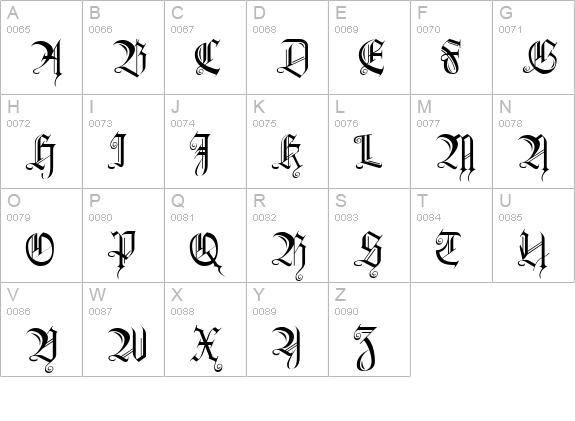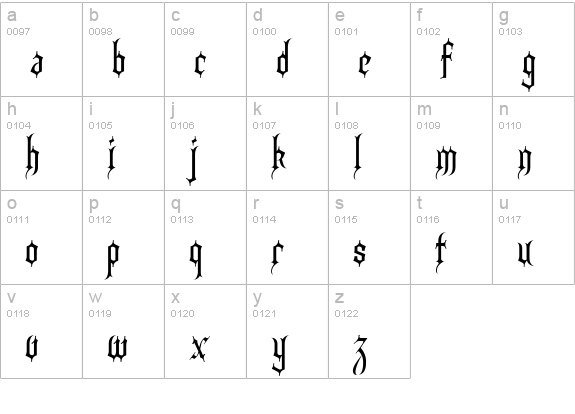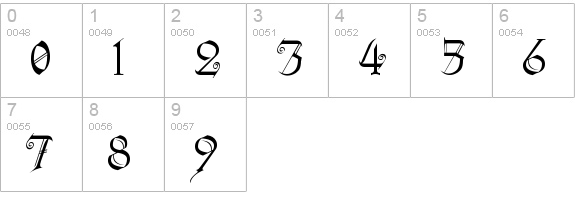
Heidorn Hill Font Details
Introducing Heidorn Hill, a captivating font that effortlessly combines elegance with a touch of playfulness. This font is a perfect choice for those seeking a versatile typeface that can seamlessly fit into a variety of design projects. Heidorn Hill boasts a unique blend of smooth curves and sharp edges, creating a harmonious balance that catches the eye. Its distinctive letterforms exude a sense of sophistication, making it suitable for both formal and informal applications. From wedding invitations to logo designs, this font will elevate any project with its timeless appeal. What makes Heidorn Hill even more enticing is that it is available for free download at FontsMarket.com. Yes, you read that right! This remarkable font can be easily obtained, granting you the opportunity to enhance your designs without any cost. With Heidorn Hill, you have the freedom to explore your creativity and experiment with various styles and layouts. Its extensive character set includes uppercase and lowercase letters, numerals, punctuation marks, and special symbols, ensuring that you have all the tools you need to bring your vision to life. So why wait? Experience the magic of Heidorn Hill today and unlock a world of design possibilities. Download this extraordinary font for free at FontsMarket.com and let your imagination run wild.